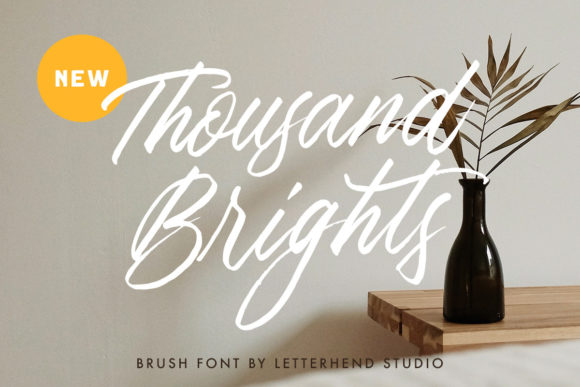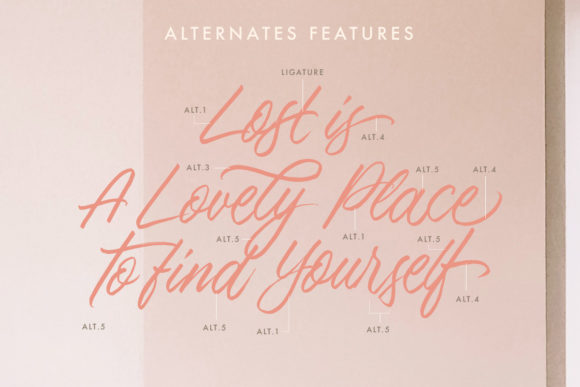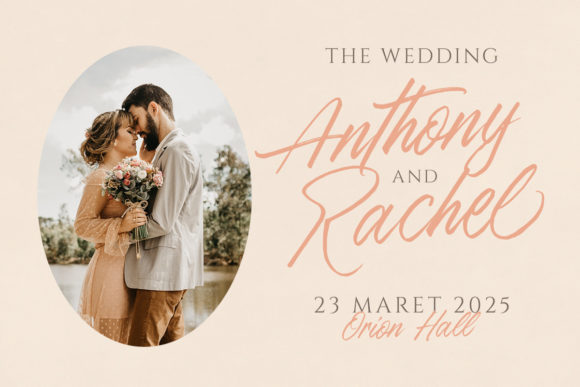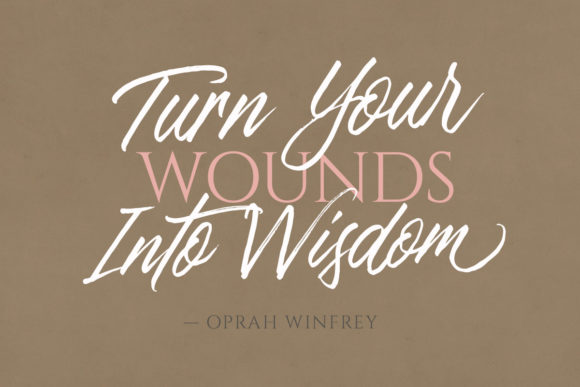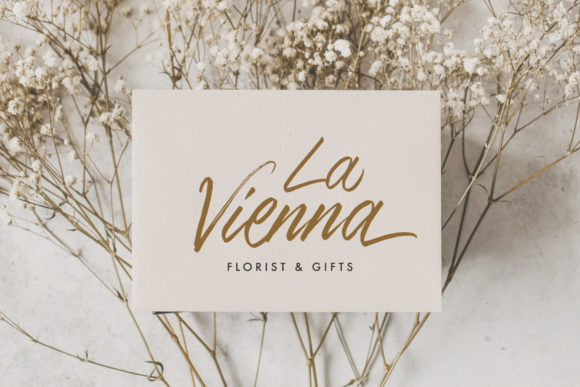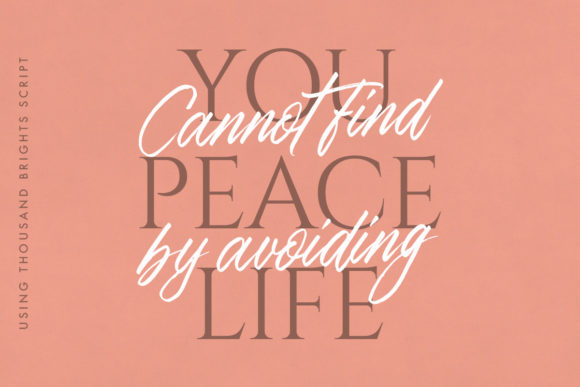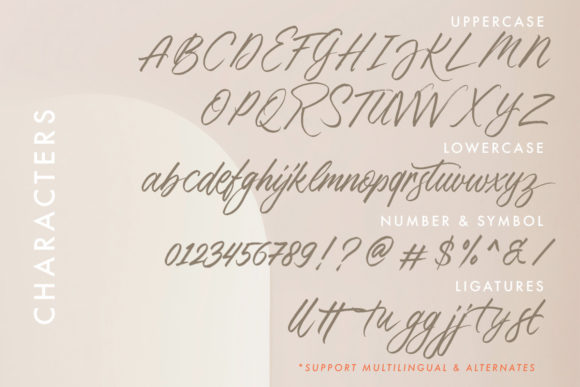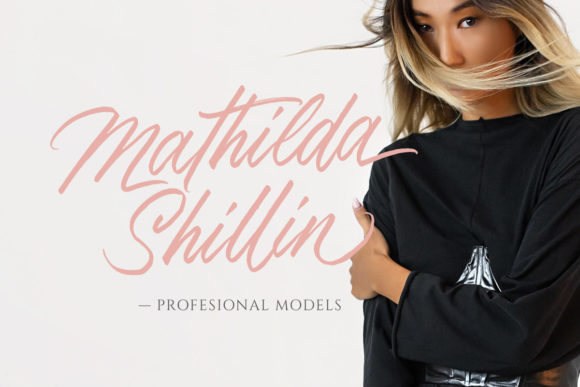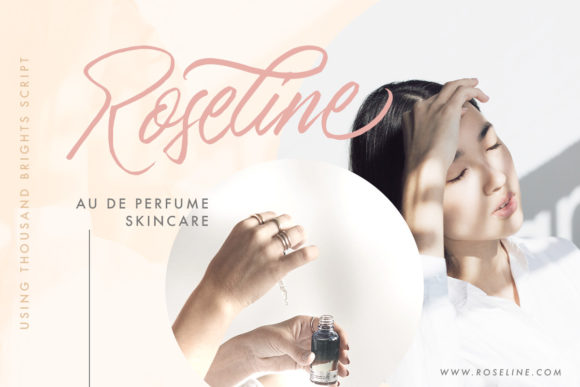
Thousand Brights Script Font
About Thousand Brights Script Font
Thousand Brights is a script font based on authentic handwriting with a natural signature style. This font is perfect for logos, invitations, labels, magazines, books, greeting/wedding cards, packaging, fashion, make-up, stationery, novels, or any advertising purpose.